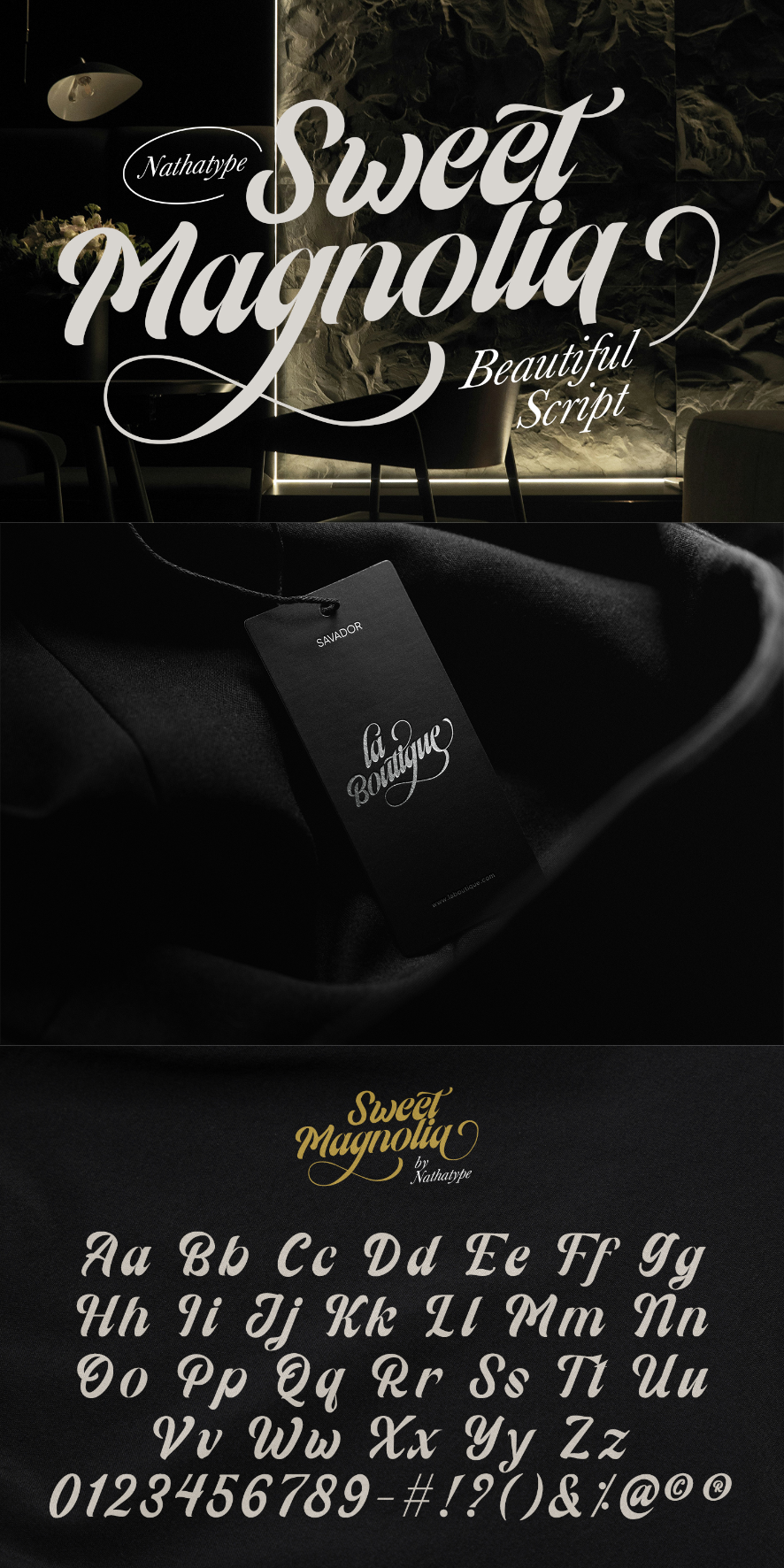
Sweet Magnolia Font
About Sweet Magnolia
Sweet Magnolia is a beautifully crafted script font. Inspired by natural handwriting, each letter in Sweet Magnolia flows seamlessly into the next, creating a cohesive and polished script style. The low contrast between strokes gives the font a balanced and harmonious appearance, making it highly readable while maintaining its delicate elegance. In addition, enjoy the features here.
Sweet Magnolia fits in logos, quotes, invitations, branding, posters, and many more designs. Find out more ways to use this font by taking a look at the font preview.